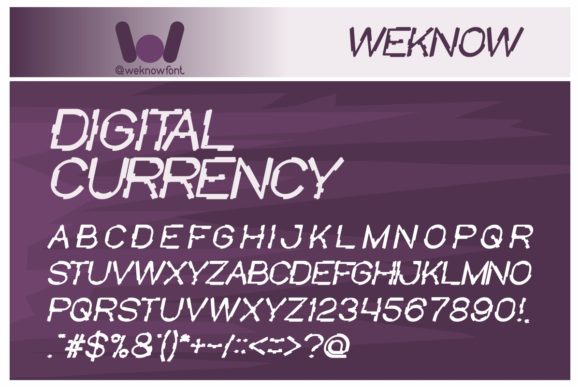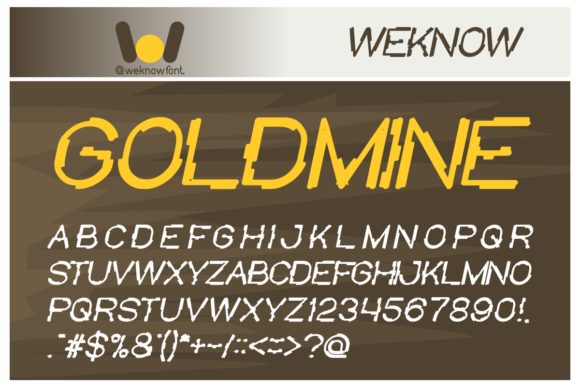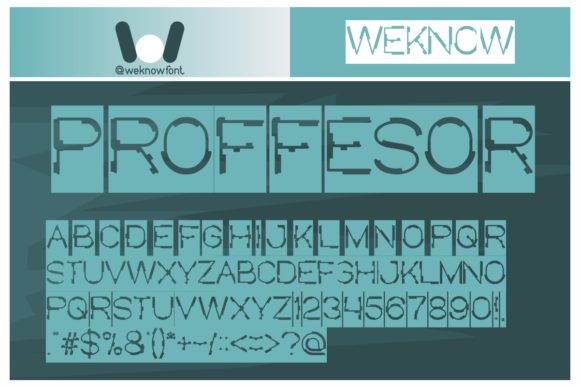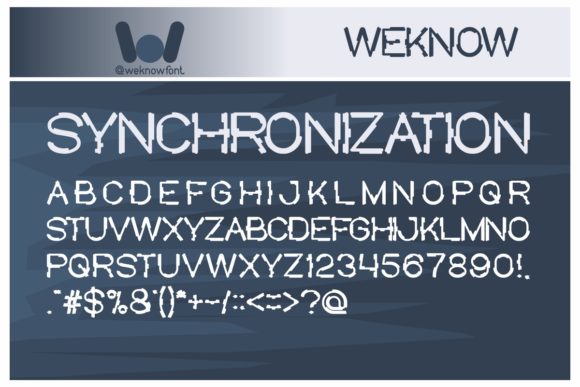
Introduction to Mick Jagged Font
Have you ever been brainstorming ideas for a creative project, flipping through design resources, and suddenly, a spark of inspiration strikes? For many designers, this is the moment when a font like the Mick Jagged Font comes into play. This unique techno style display font is a game-changer, offering a clean and quirky aesthetic that elevates any logo, branding, social media, or crafty DIY project.
As a valuable addition to any design toolkit, the Mick Jagged Font is a must-have for creatives looking to add some personality to their work. With its high-quality design and transparent background, this font is perfect for designers who want to stand out from the crowd.
Key Features of Mick Jagged Font
- Unique, hand-drawn design with a touch of rock ‘n’ roll style, perfect for creative projects and design enthusiasts.
- Designed to be highly legible, with a clear and bold appearance suitable for a wide range of creative applications.
- Perfect for designers, artists, and musicians looking to add a touch of edginess to their creative projects.
Honest Review: Mick Jagged Font
The font itself is a high-quality addition to any design project, with a transparent background that makes it easy to layer and manipulate. The bold, distressed style adds a cool, vintage vibe that can instantly give your design a unique twist.
Here are some of the things that work well with the Mick Jagged Font:
- ✨ High-quality, crisp design that’s perfect for print or digital projects
- ✨ Unique, bold style that adds a touch of personality to any design
- ⚠️ Limited character set, which may require additional fonts for more complex designs
- ⚠️ Not suitable for fine or delicate designs, as the bold style can be overwhelming
Overall, I’m impressed with the Mick Jagged Font and its potential to elevate my creative projects. While it’s not perfect, its unique style and high-quality design make it a valuable addition to any design resource collection.
For the best results, use the Mick Jagged Font in conjunction with other design elements that complement its unique style. Experiment with different font sizes and colors to create a visually appealing design. Also, consider using the font on a transparent background to give your design a high-quality, professional look.
The Mick Jagged Font is ideal for creative projects that require a unique and eye-catching design. It’s perfect for logos, posters, social media graphics, and other design elements that need a high-quality, custom font.